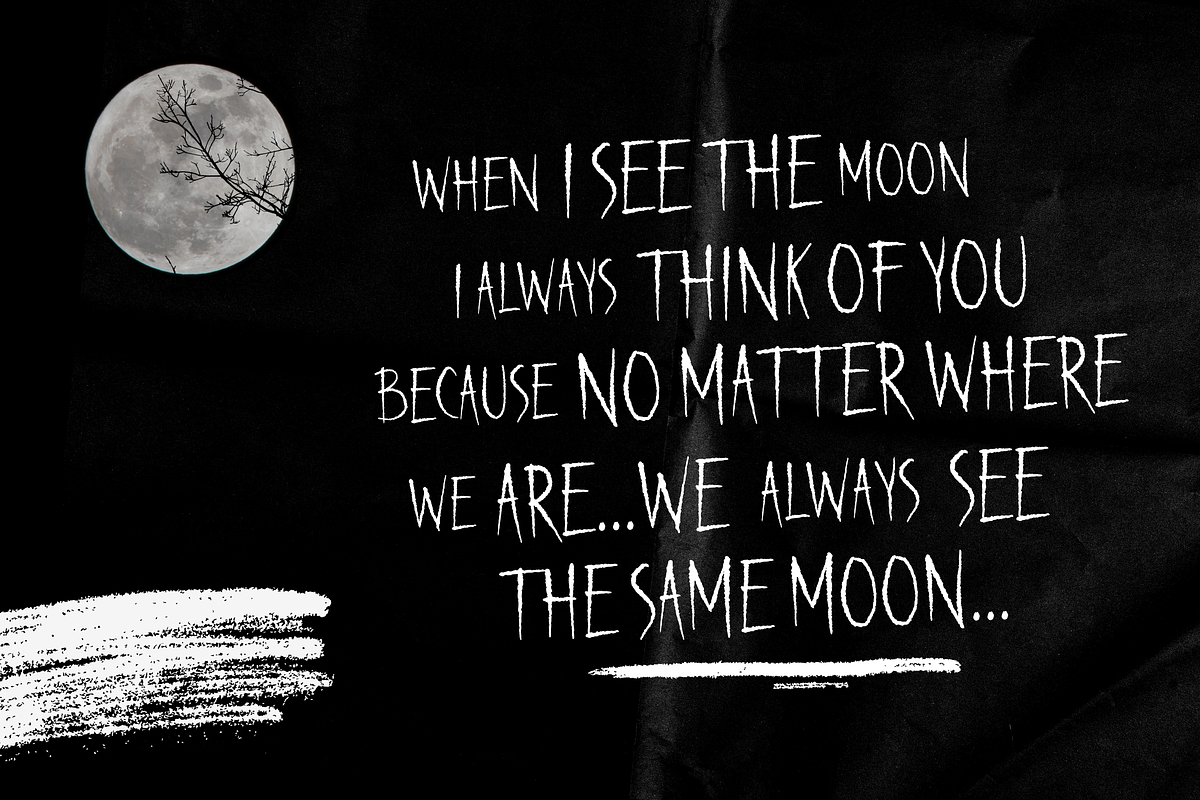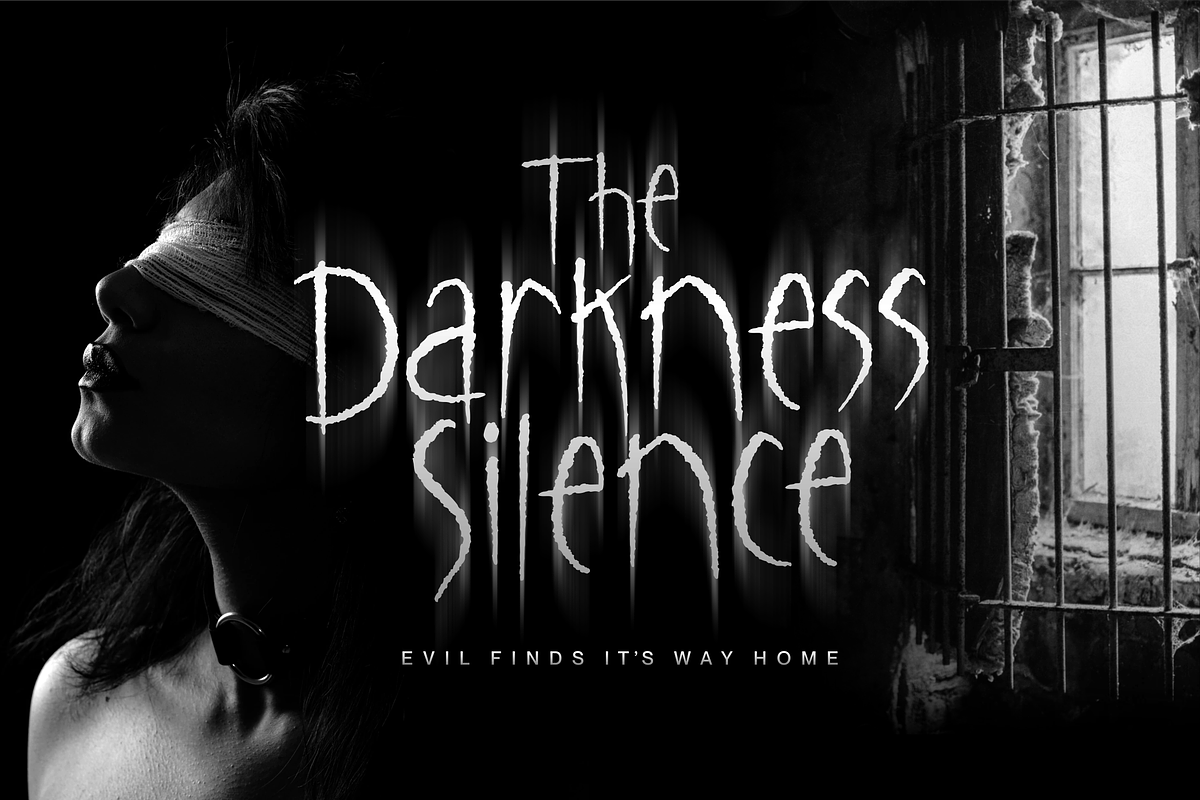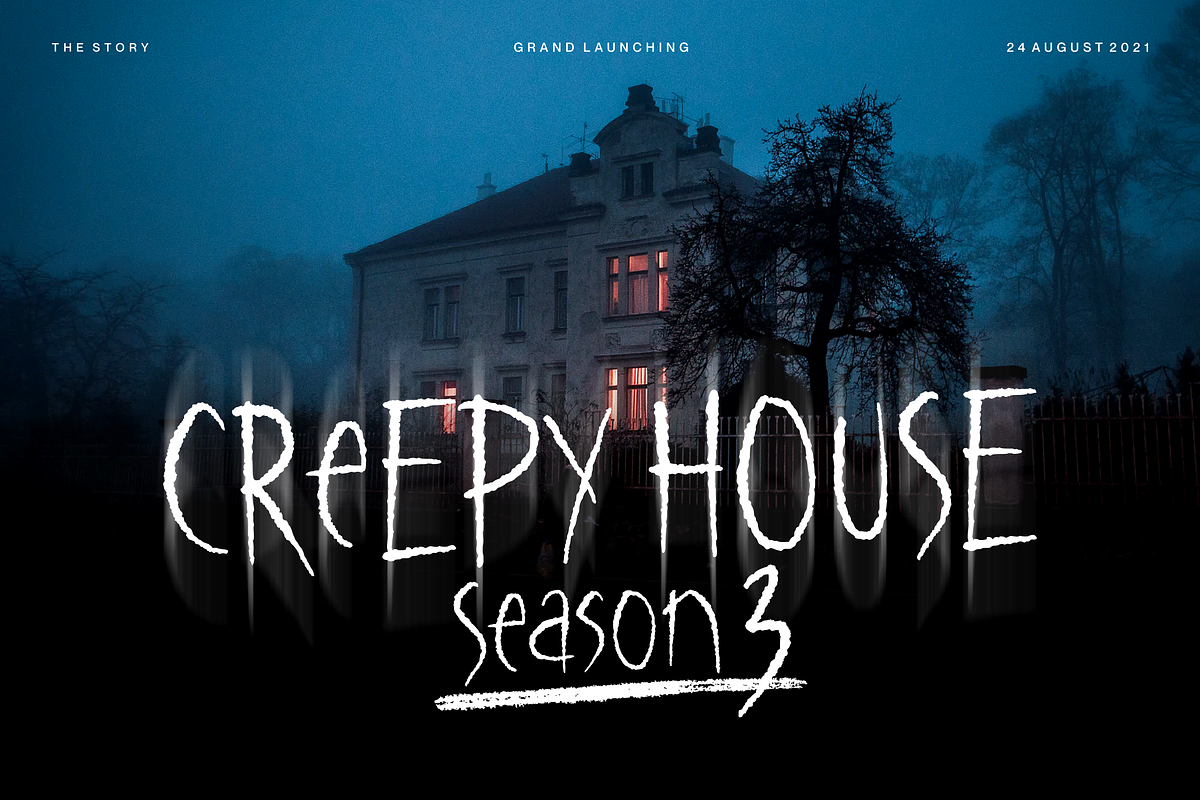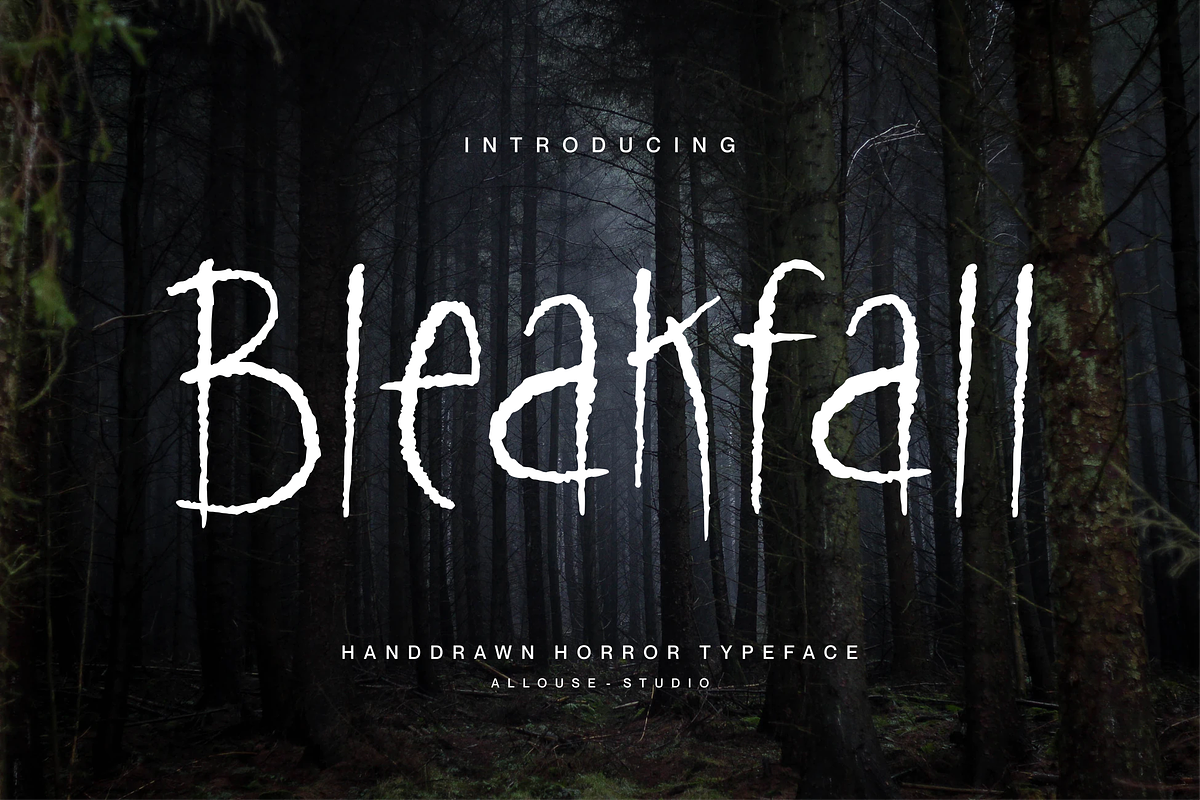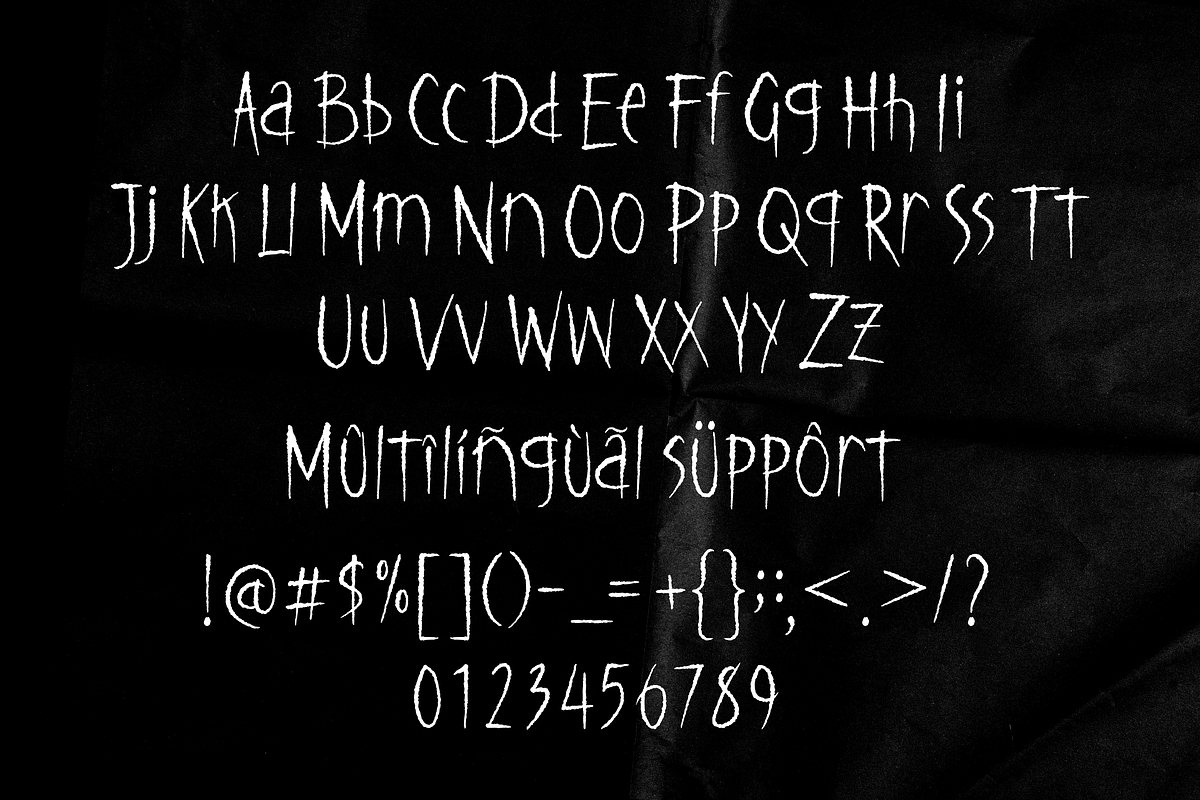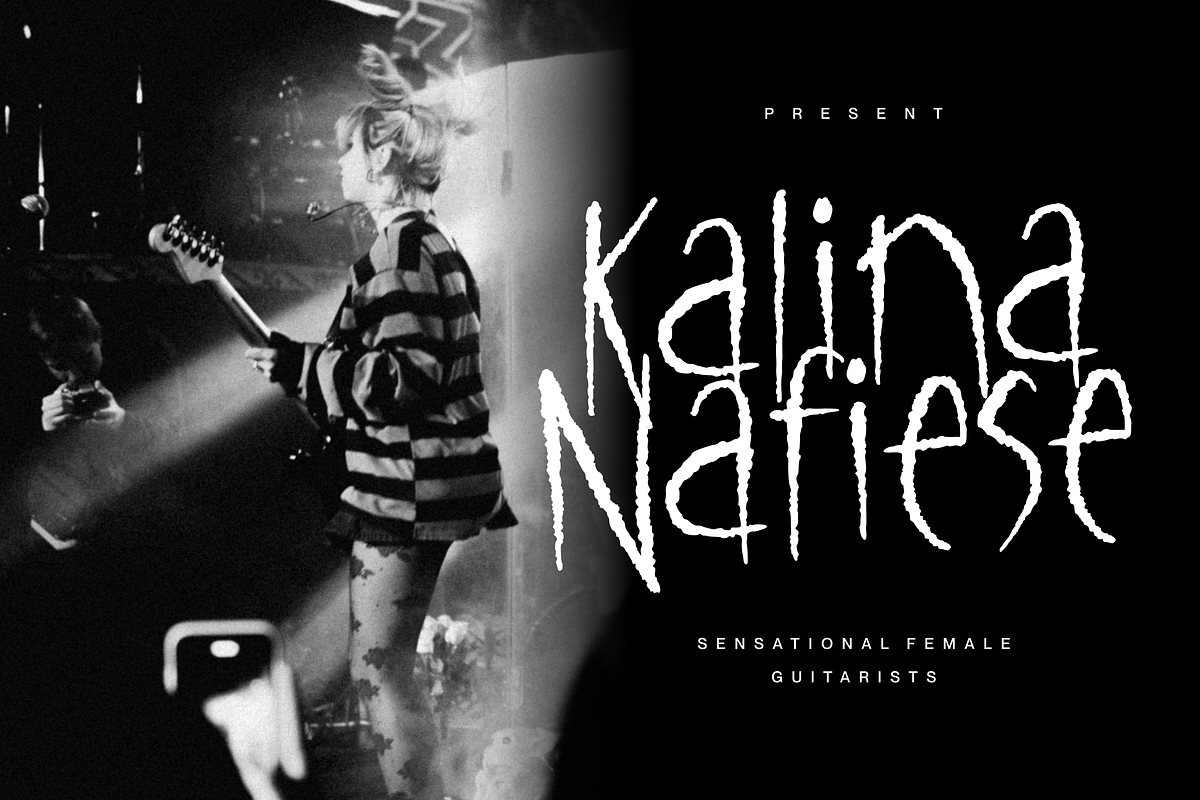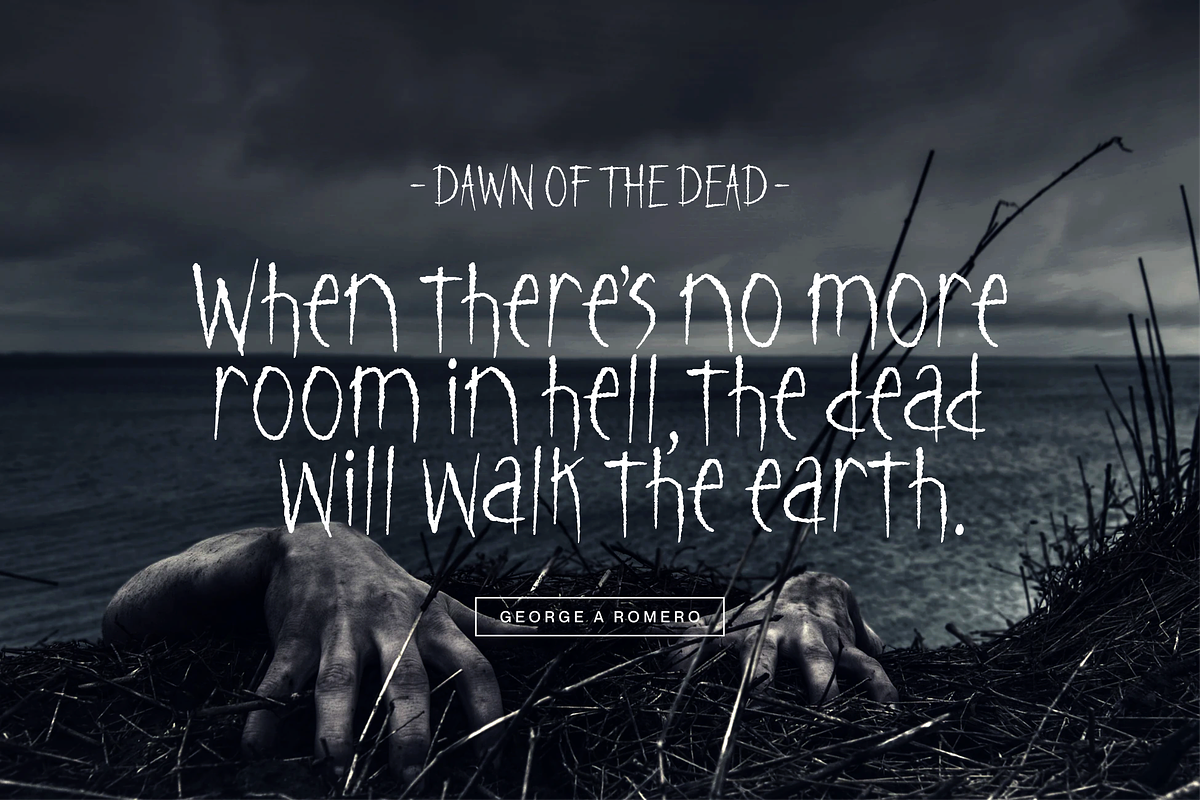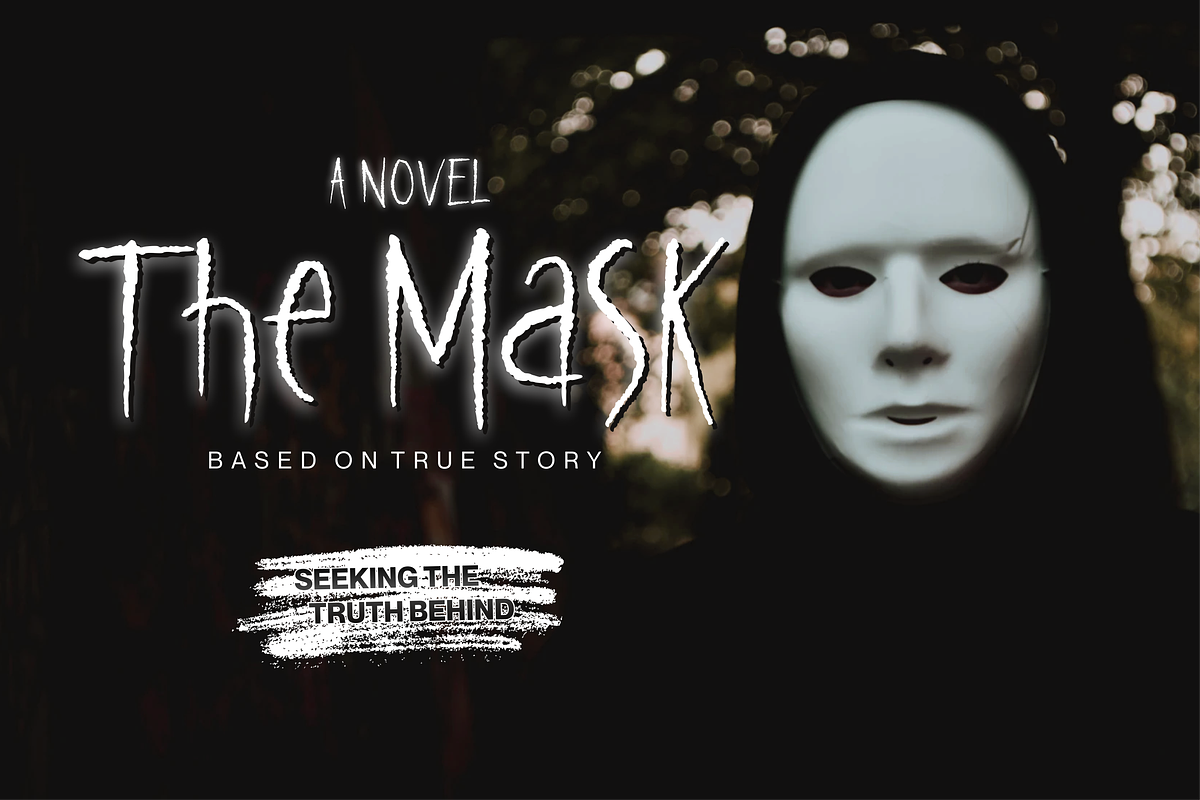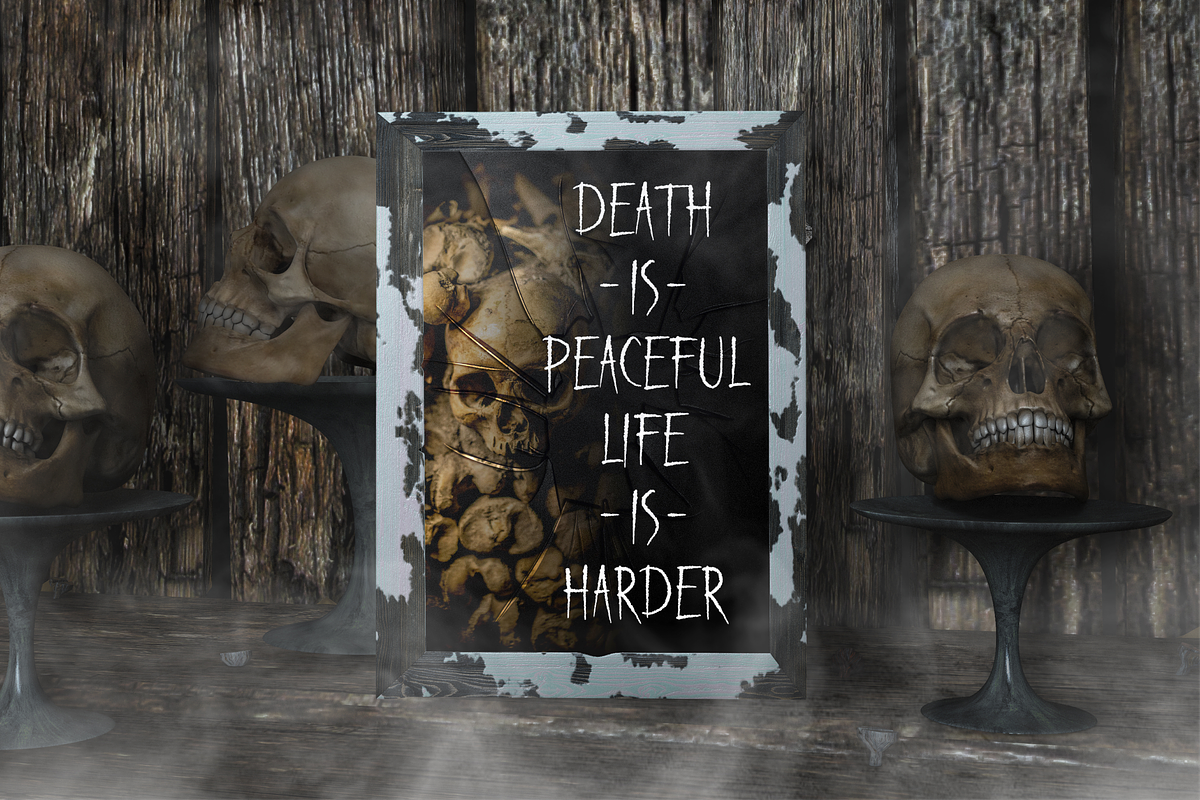
Bleakfall Font
Introducing by Allouse.Studio
Proudly Present, Bleakfall
Bleakfall is a Handdrawn Horror Typeface.
Bleakfall is perfect for product packaging, branding project, megazine, social media, wedding, or just used to express words above the background.